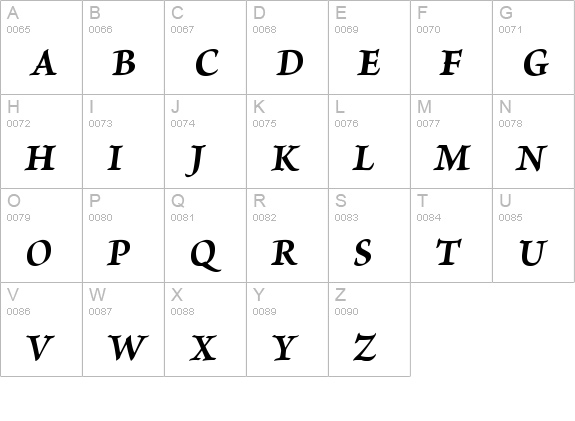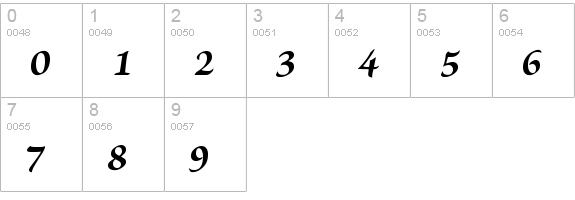
Brioso Pro Bold Italic Caption Font Details
Brioso Pro Bold Italic Caption is a strong, high-contrast, italic variant in the Brioso typeface family \xE2\x80\x94 well suited to headlines, attention-grabbing titles, and strong calls-to-action.
Brioso Pro Bold Italic Caption is a sophisticated and elegant font that exudes confidence and style. Its bold and italicized design makes it perfect for adding emphasis and flair to any text. The sleek curves and sharp edges of this font create a modern and professional look that is sure to make a statement. Best of all, Brioso Pro Bold Italic Caption is available for free download at FontsMarket.com. Whether you're a designer looking to elevate your projects or a writer wanting to add a touch of elegance to your words, this font is a versatile and eye-catching choice. Don't miss out on the opportunity to enhance your work with this stunning typeface, now available for free on FontsMarket.com.